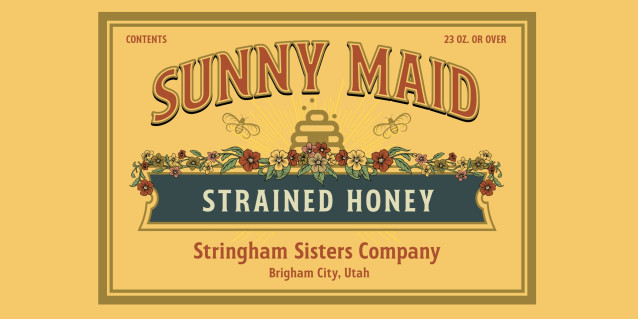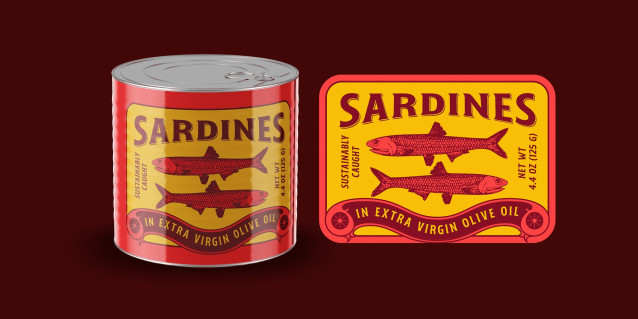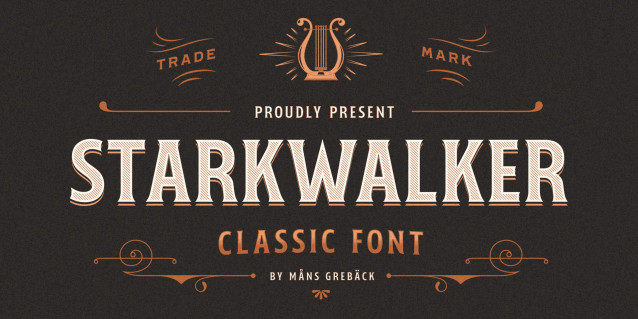
Starkwalker Classic Font
Starkwalker Classic Font is a bold and commanding serif typeface that blends retro aesthetics with space-age flair. Its heavy structure gives it a grounded feel while maintaining a sleek, futuristic edge. This is a font that demands attention, with thick, fat strokes that bring a sense of vintage grandeur, perfect for making a strong statement.
Drawing inspiration from classic storefront signage, Starkwalker Classic feels at home in both retro and modern settings, with its bold weight making it ideal for impactful headlines or logos. It carries an unmistakable sense of class and authority, while still capturing the imaginative spirit of a innovative brand. Perfect for designs that need a balance of vintage charm and futuristic vision.
The font is built with advanced OpenType functionality and guaranteed top-notch quality, containing stylistic and contextual alternates, ligatures and more automatic and manual features; all to give you full control and customizability.
Designed by Mans Greback with care, Starkwalker Classic embodies a timeless aesthetic that connects past, present, and future.